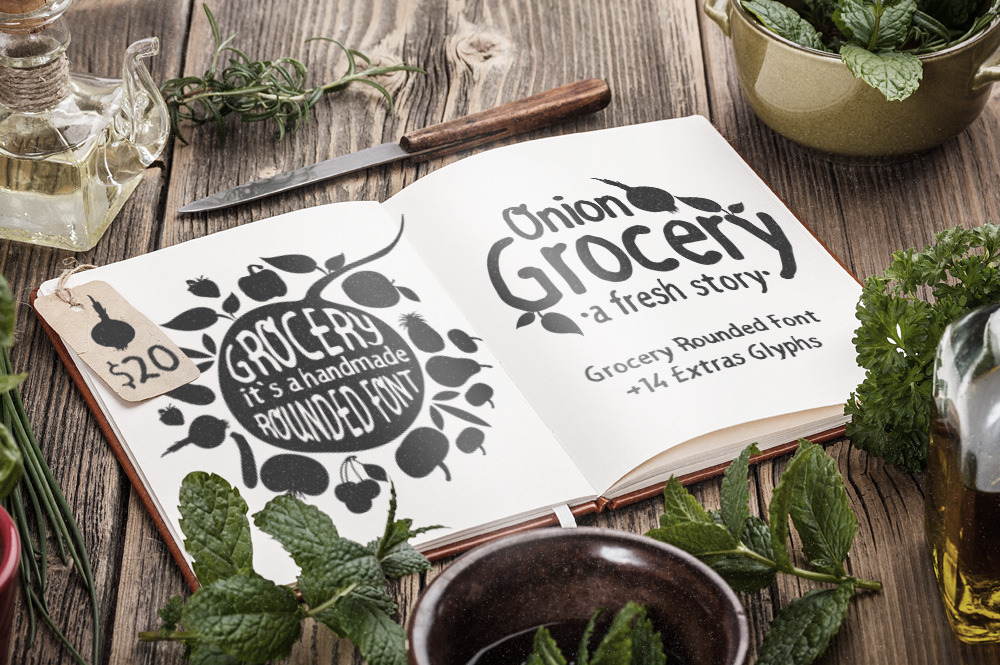
Grocery Rounded Font
Grocery Rounded Handmade Font
This is a handmade rounded font.
The font includes all letters uppercase and lowercase all punctuation signs and 14 bonus vegetable / fruits glyphs.